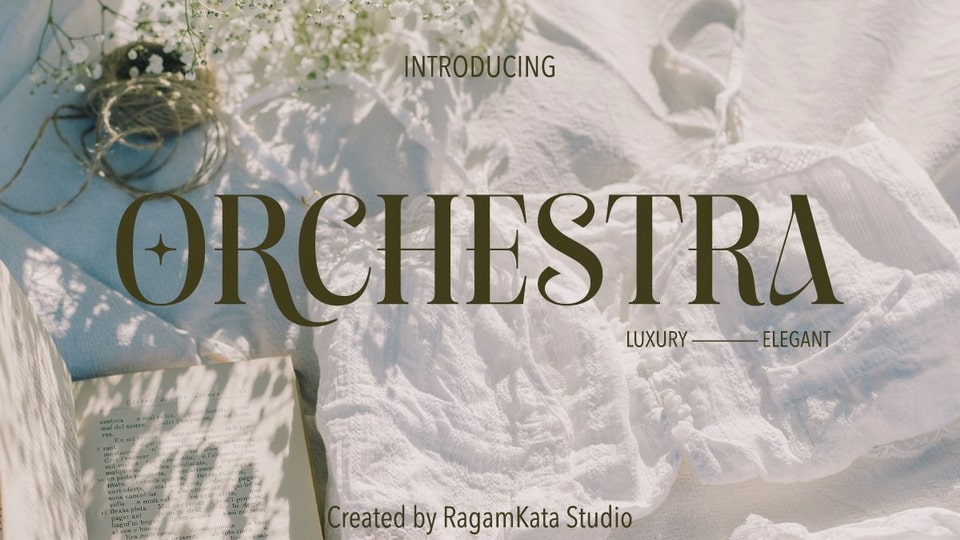
Download Orchestra font, incredibly authentic serif typeface. Orchestra font gives off an elegant and classic feel, while still appearing modern and in line with the current design trends.